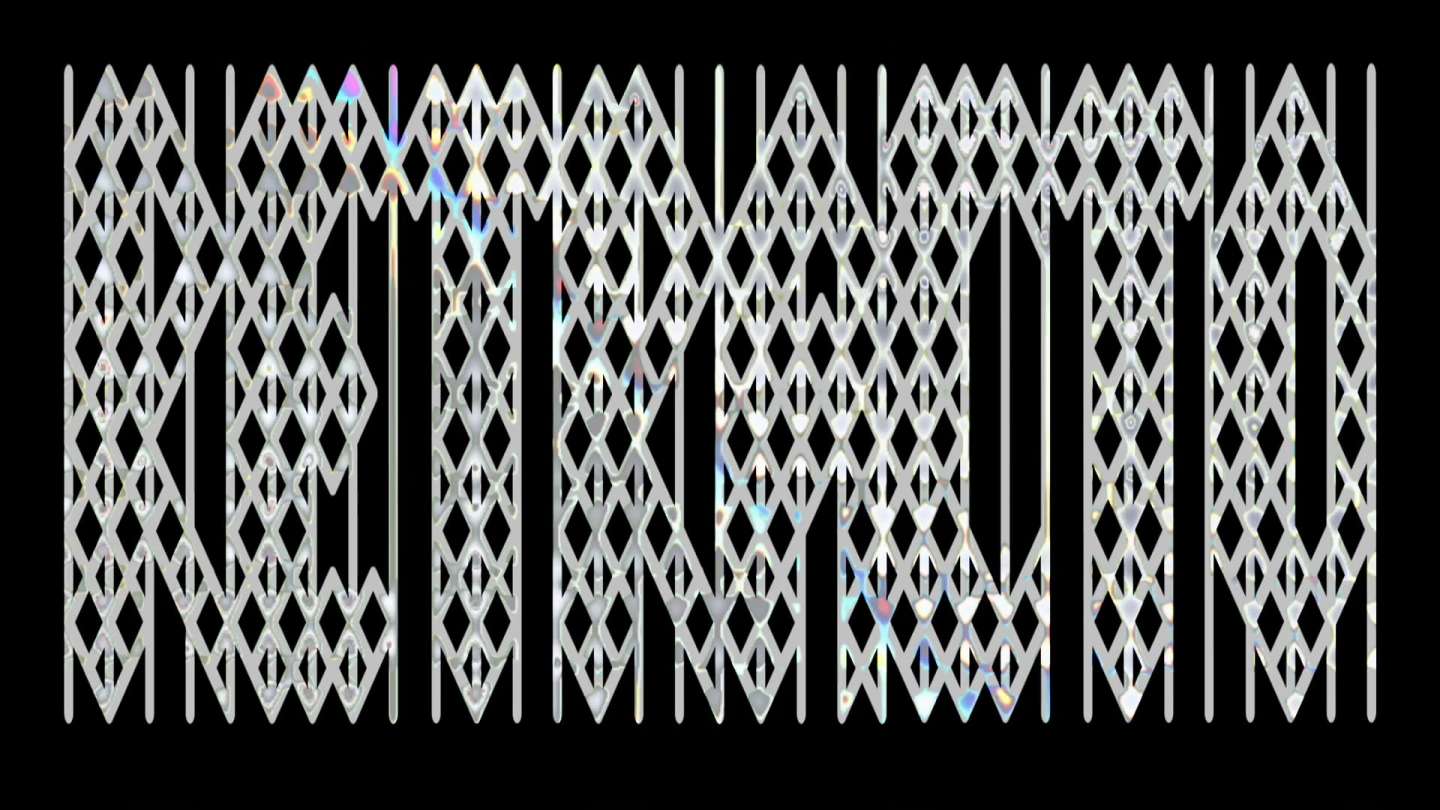
Retracto is a typeface based on the mechanics of retractable electronic folding doors. Each letter reflects the segmented, jointed structure of these gates, with forms that suggest motion, extension, and contraction. The design captures a sense of industrial rhythm—precise, functional, and dynamic. Just like the doors that inspired it, Retracto is made to expand, compress, and adapt to the space it inhabits.